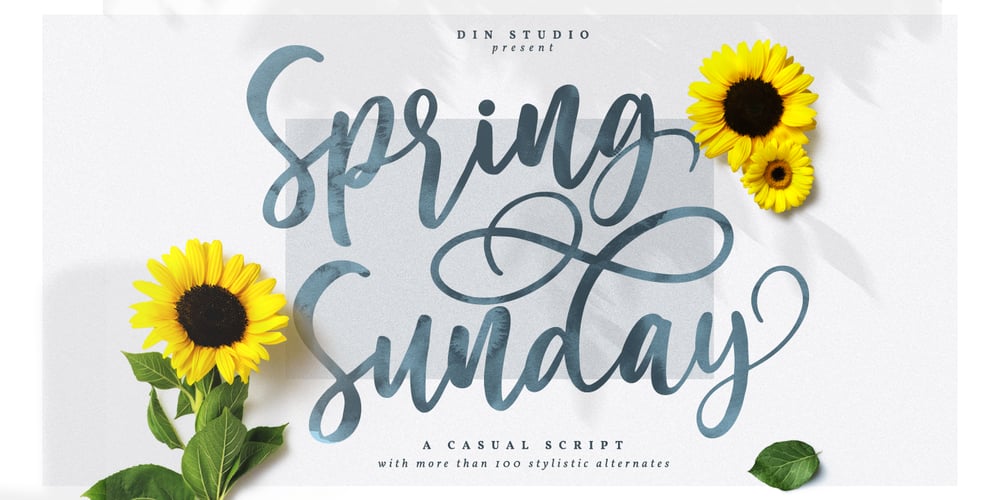
Spring Sunday Font Family was designed by Donis Miftahudin and published by Din Studio. Spring Sunday contains 1 styles and family package options. Introducing Spring Sunday. Made with a natural hand brush, it will make your design project more beautiful. The font is suitable for any design like branding, fashion, print templates, quotes, wedding and more.Features ; 110 great Alternates 4 beautiful Ligatures PUA encoded Multilingual Support Numerals and Punctuation (OpenType Standard) Full Support Thanks for visiting and purchasing my font.Donis M